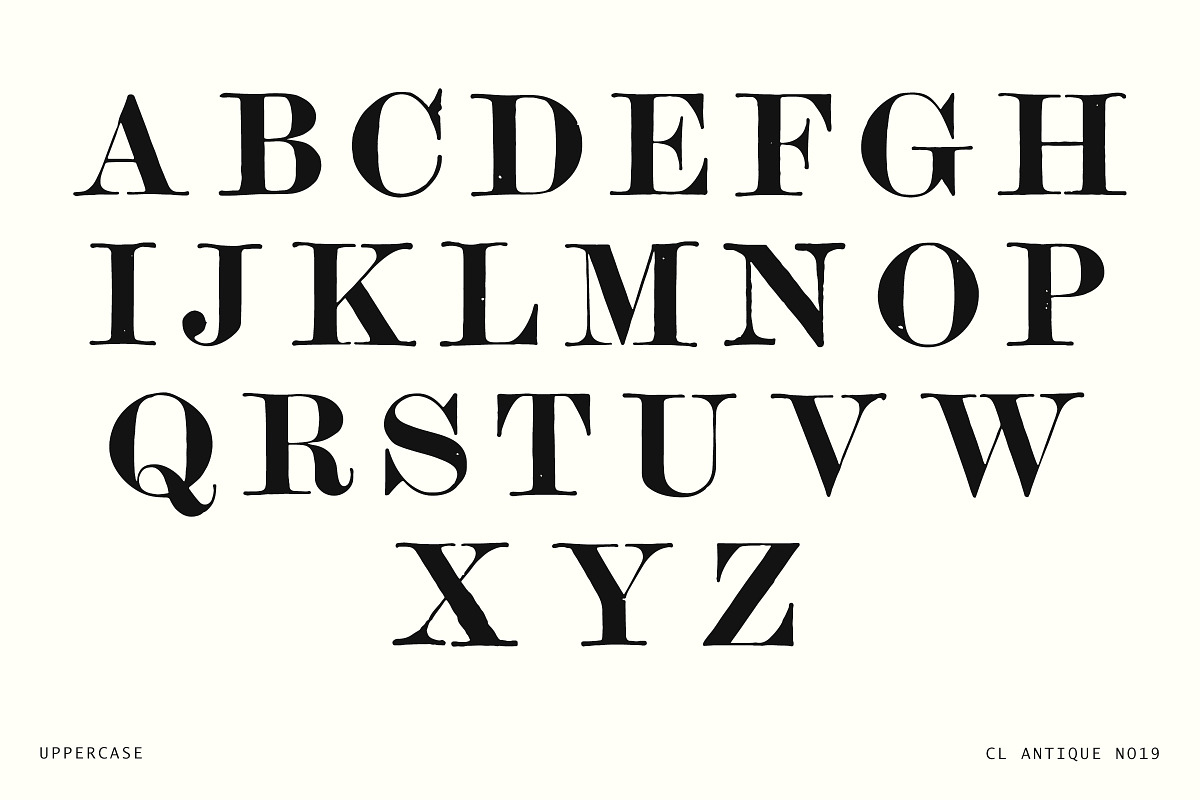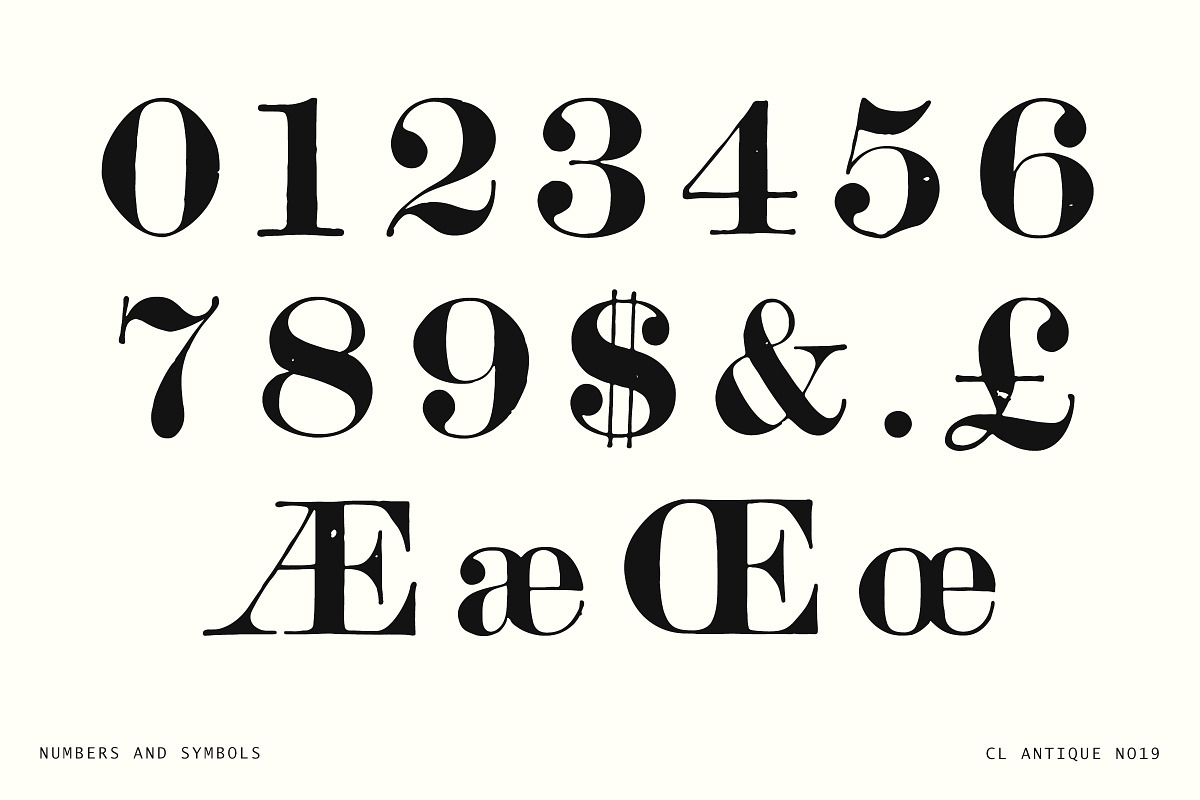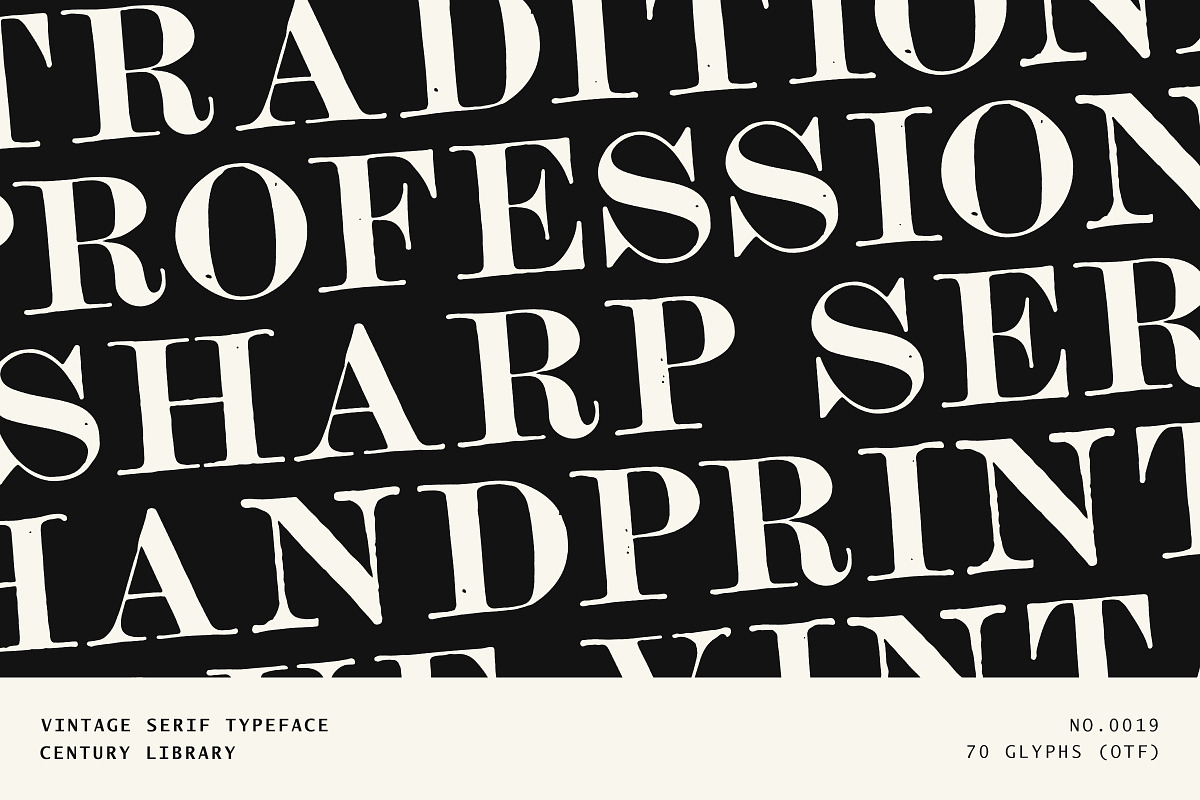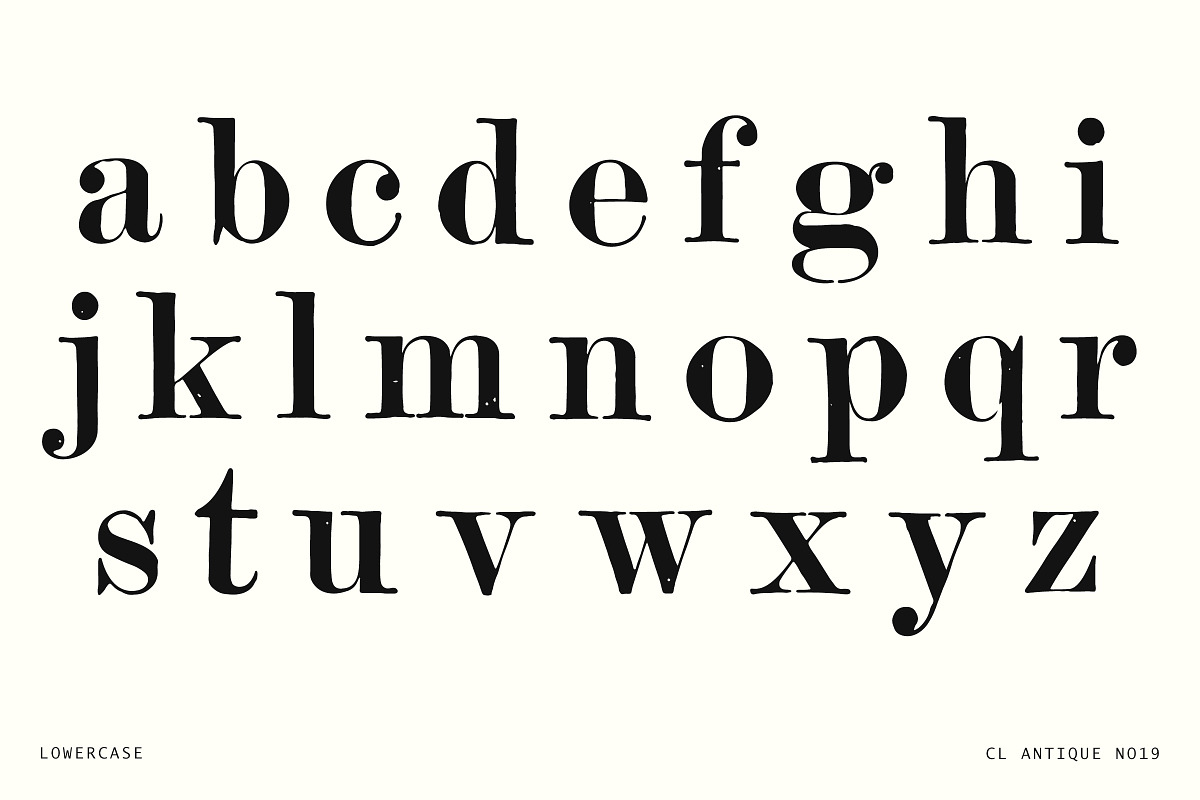
Vintage Hand-Printed Serif Typeface
CL Antique No.19 is a bold, sharp-edged serif pulled straight from the 19th century. This isn’t a cleaned-up reinterpretation - it’s a true restoration. Every delicious imperfection is preserved exactly as it was found.
There’s an authentic charm to this one. The weight and contrast give it authority, while the rugged, printed texture adds just enough grit to keep things interesting. Think classic editorial, old signage, or traditional advertising layouts - but with a human, handmade feel baked in.
Use it when you want your work to look serious, but not sterile. It’s ideal for branding, headlines, packaging, logos, or anything that needs a solid serif with soul.
- Uppercase A–Z
- Lowercase a–z
- Numerals 0–9
- Symbols: $ & . £ Æ/æ Œ/œ